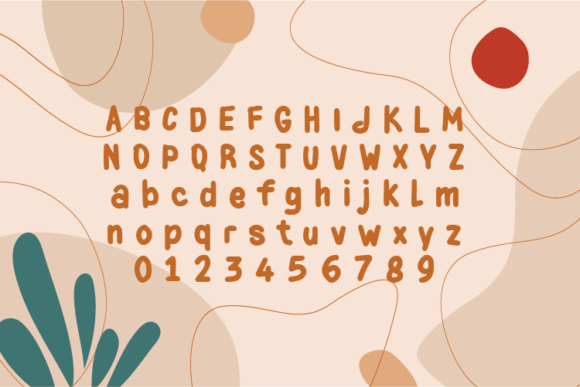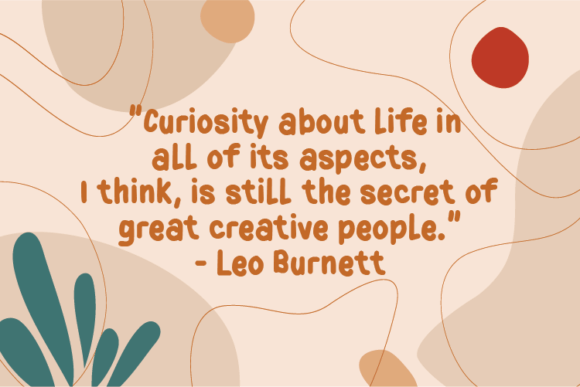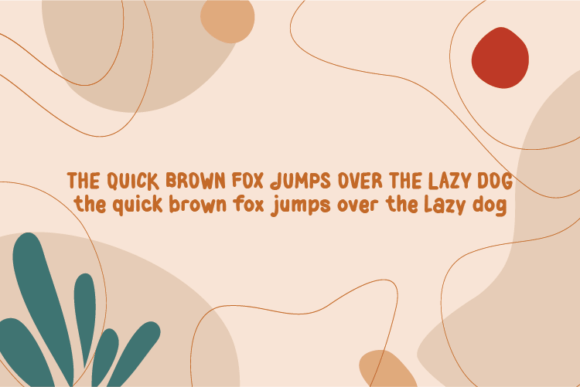
Introduction to Minimalism Font
Remember that moment when you stumbled upon the perfect font for your design project? The one that made all the pieces fall into place and your creative vision shine through? For many designers, that moment is elusive, but with the right tools, it can become a reality. One such tool that has been gaining popularity in recent times is the Minimalism Font.
This beautiful, natural handwritten font is a treasure trove for designers looking to add a touch of elegance and sophistication to their work. With its unique, unaltered nodes, the Minimalism Font offers a high-quality design resource that can be used in a variety of creative projects, from quotes and notes to product design and more.
Key Features of Minimalism Font
- High-quality design: Minimalism Font is crafted with precision and care to provide a crisp, clean look perfect for creative projects.
- Transparent background: This font features a transparent background, making it easy to layer over other design elements and maintain a seamless look.
- High-resolution design: With a resolution of 300 DPI, this font is suitable for both digital and print projects, guaranteeing sharp text and crisp lines.
- Perfect for modern designs: Minimalism Font’s sleek, modern aesthetic makes it an excellent choice for designers working on contemporary creative projects.
- Scalable design: This font is designed to be scalable, allowing you to easily resize it to fit your specific design needs without compromising on quality.
Honest Review: Minimalism Font
I recently stumbled upon the Minimalism Font and I must say, I’m impressed. As a designer, I’m always on the lookout for high-quality design resources that can elevate my creative projects.
Here’s what I like about the Minimalism Font: ✨ It’s incredibly easy to download and install, even on a free download basis. The font is available in various formats, including OTF and TTF, making it compatible with most design software. ✨ The font’s transparent background allows for seamless integration with any design, making it a versatile resource for any creative project. ✨ Lastly, the font’s clean and simple design makes it perfect for modern and minimalist designs.
However, I do have a few concerns: ⚠️ The font’s limited character set may not be suitable for longer texts or projects that require a wide range of characters. ⚠️ Additionally, the font’s simplicity may not be ideal for more complex or ornate designs.
Overall, I think the Minimalism Font is a great addition to any designer’s toolkit. While it may have some limitations, its ease of use, high quality, and versatility make it a valuable resource for any creative project.
- Perfect for modern and minimalist designs
The Minimalism Font is a free design resource ideal for creative projects that require a clean and simple aesthetic. This high-quality font features a transparent background, making it easy to customize and integrate into your design.
Getting the Most Out of Minimalism Font
To get the most out of the Minimalism Font, use it in conjunction with other clean design elements, such as simple shapes and minimal graphics. This will help create a cohesive and visually appealing design.
Common Use Cases for Minimalism Font
The Minimalism Font is ideal for a variety of creative projects, including business cards, brochures, and website designs. It’s also great for creating invitations, social media graphics, and other promotional materials.
Is the Minimalism Font suitable for use with a transparent background in design projects?
Yes, the Minimalism Font is designed to be versatile and can be used with a transparent background. The font’s design is optimized for clear readability, even when used on a transparent or semi-transparent background. This makes it an ideal choice for creative projects that require a clean and modern aesthetic.